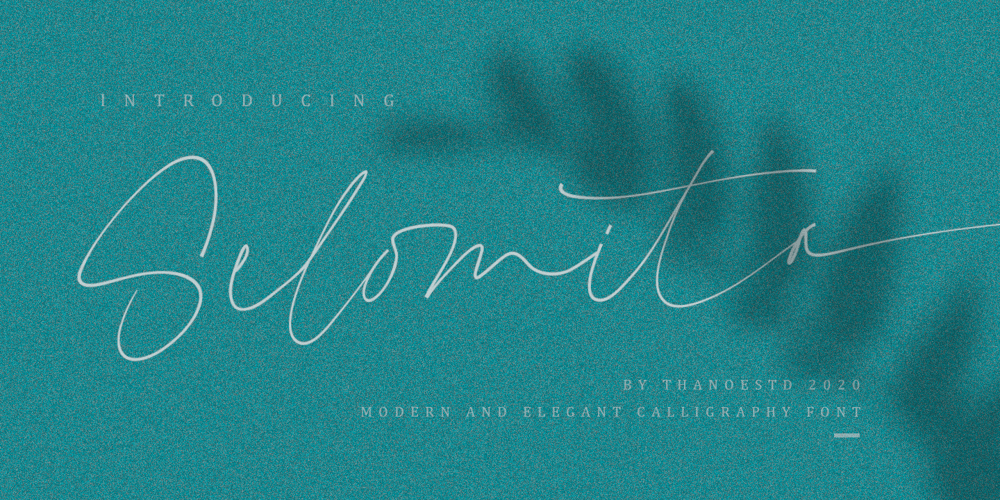
Selomita Font Family was designed by Taupiq Nuzuli and published by Thanoestd. Selomita contains 1 styles and family package options. Selomita is a magical handwritten font carefully created with a touch of elegance. This is a beautiful combination of timeless elegance and authentic calligraphy. It features an incredibly classic style, while still keeping a friendly feel. This font is the perfect font for making original and outstanding designs.To keep maximum real hand lettered effect, there were created 65 ligatures. Selomita also includes full set of uppercase and lowercase letters, full uppercase alternate and some lowercase alternate letters, swash, numerals, punctuation.I hope you like with this font.Thanks.